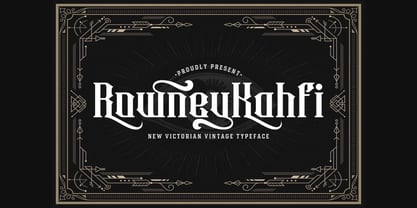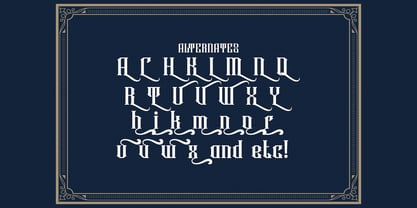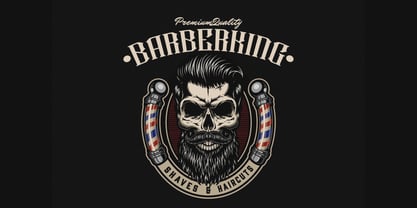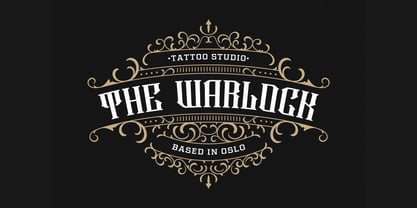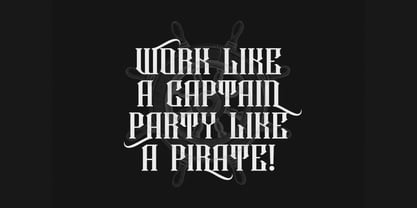
Rowney Kahfi
by Stringlabs Creative Studio
The Rowney Kahfi Font Family was designed by Virgiawan Listanto and published by Stringlabs Creative Studio. Rowney Kahfi contains 1 styles. More about this family
Rowney Kahfi is a richly detailed Victorian-style font that captures the elegance and grandeur of the 19th century. With its ornamental letterforms, bold serifs, and vintage flair, this font brings a sense of classic sophistication to every design.